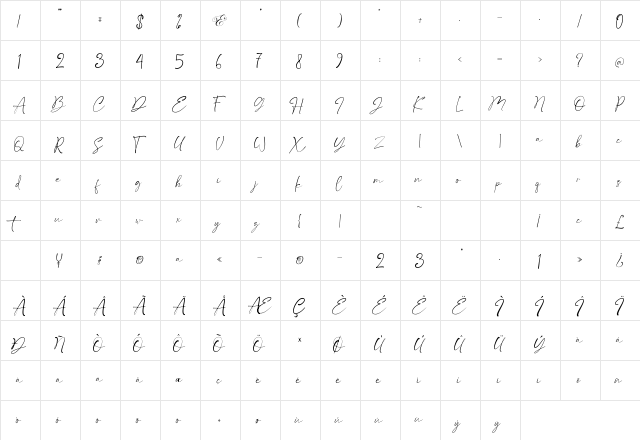
Satteck Regular
Design Context for Satteck Typeface
Satteck is a composed and adaptable typeface that performs quietly and consistently across a wide range of design contexts.